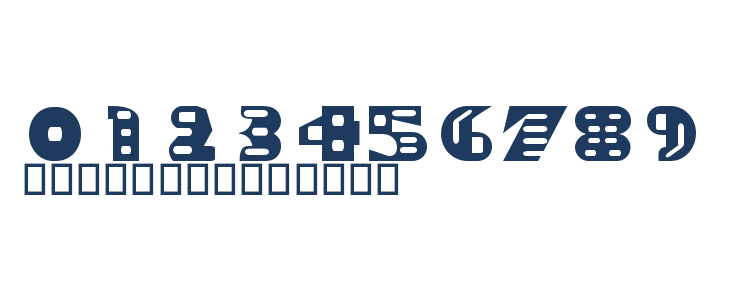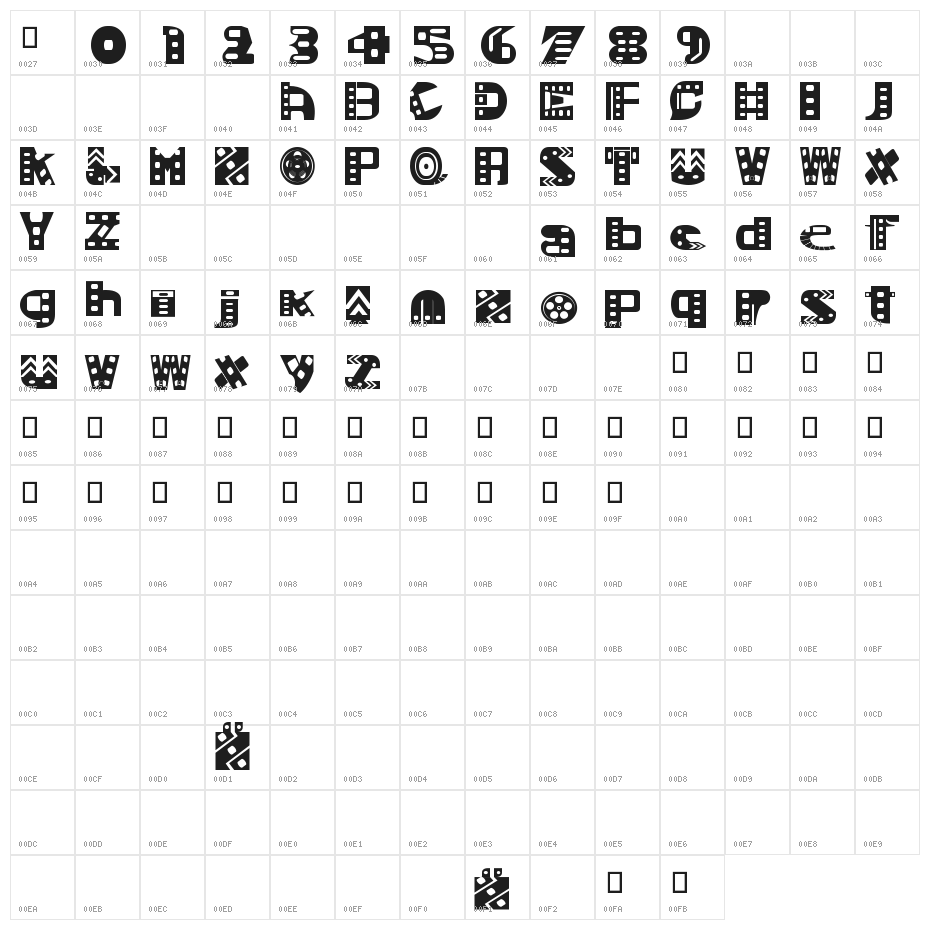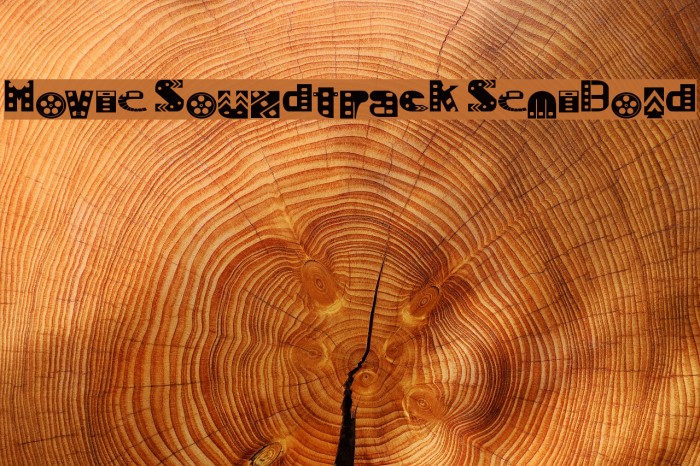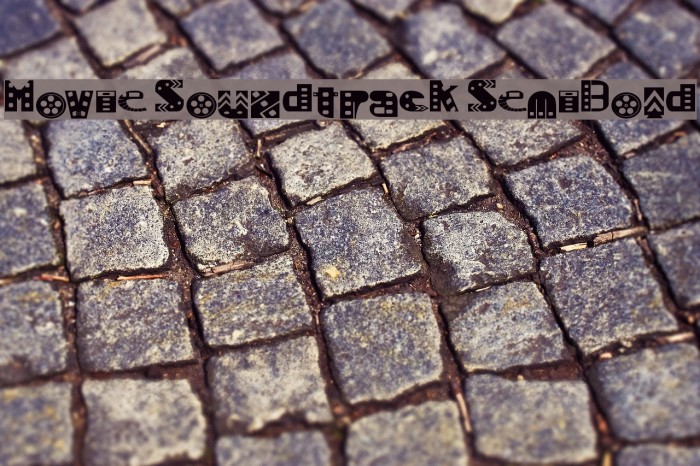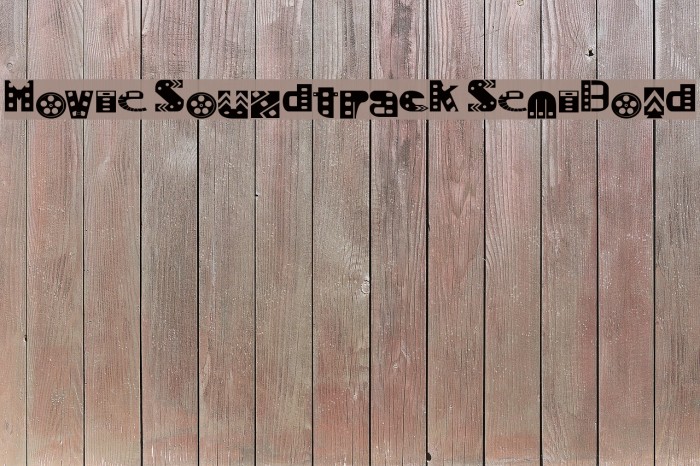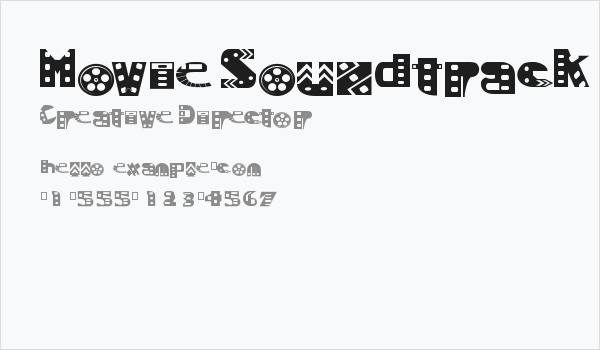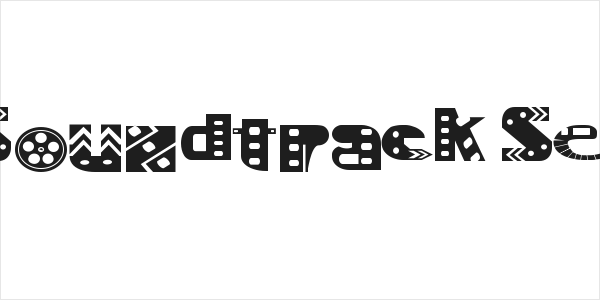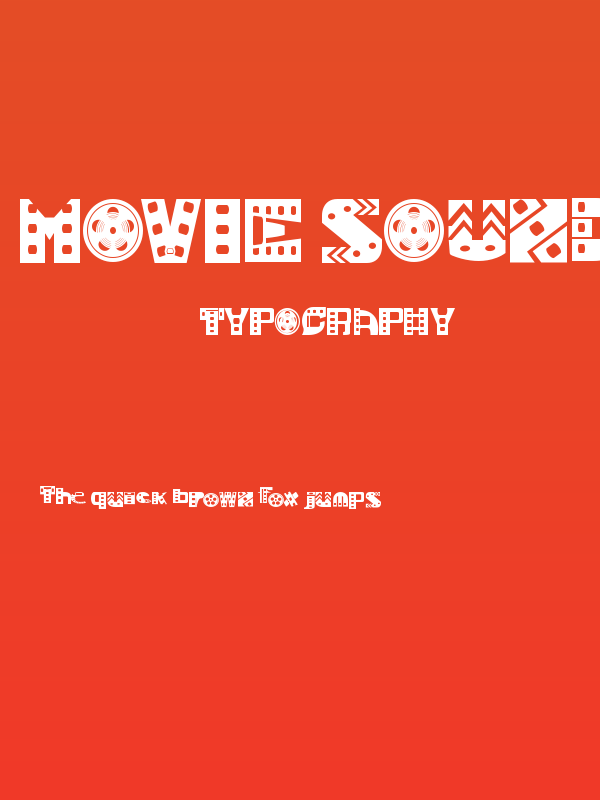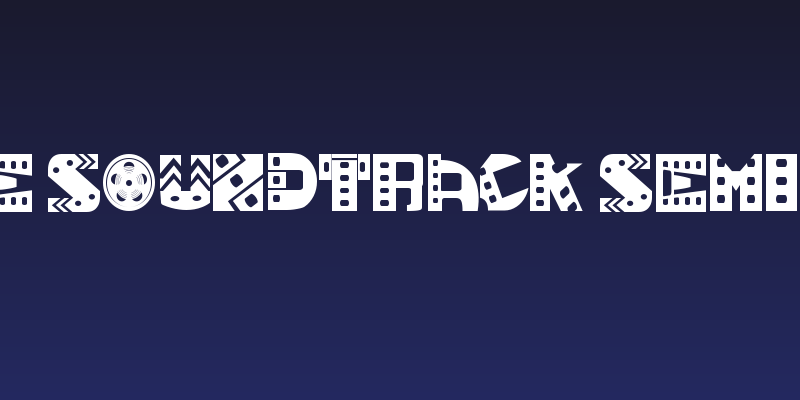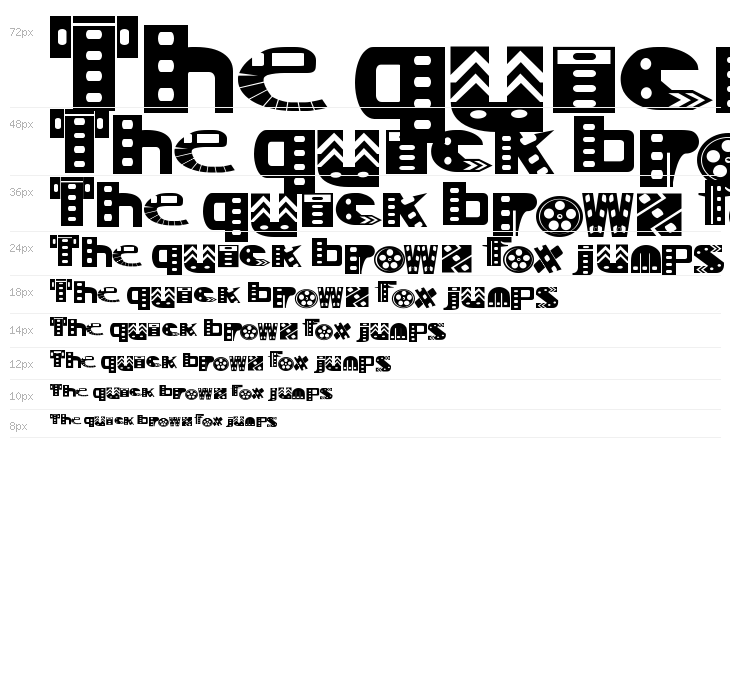
Movie SoundtracK SemiBold Font
Movie SoundtracK SemiBold Description
This font is a bold and decorative typeface that draws inspiration from cinematic themes. Each character is uniquely designed with elements reminiscent of film reels, spotlights, and other movie-related motifs. The uppercase letters are particularly striking, featuring intricate patterns and shapes that evoke a sense of drama and excitement. The lowercase letters maintain the same thematic elements but with a slightly more subdued appearance. Numbers and special characters are equally stylized, ensuring a cohesive look across all text. This font is perfect for projects that require a strong visual impact and a touch of Hollywood glamour.
| Proposed Projects | Ideal for movie posters, film festival branding, entertainment event flyers, and themed party invitations. |